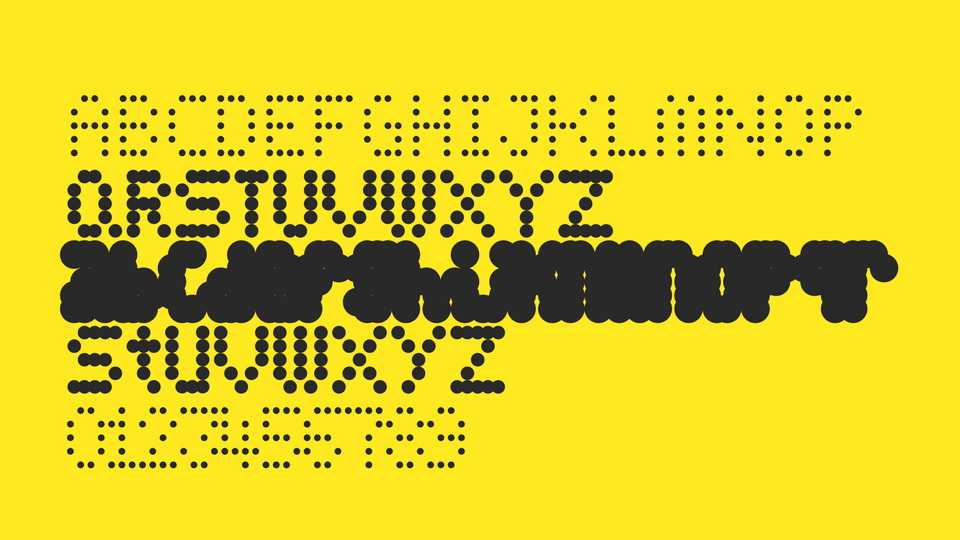
Download Schroffer Mono font, a modern monospaced typeface composed entirely of rounded dots, offering a sleek, tech-inspired aesthetic with a playful twist.
Designer: Ralph Bruens